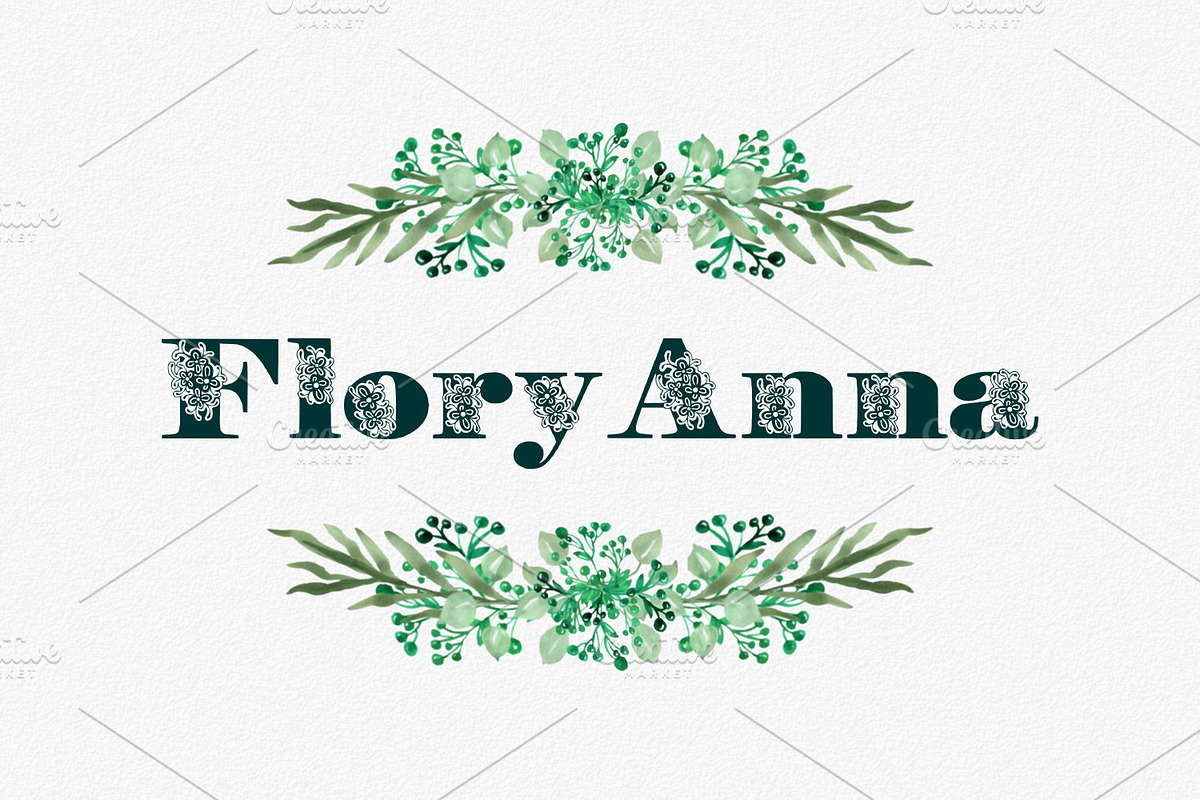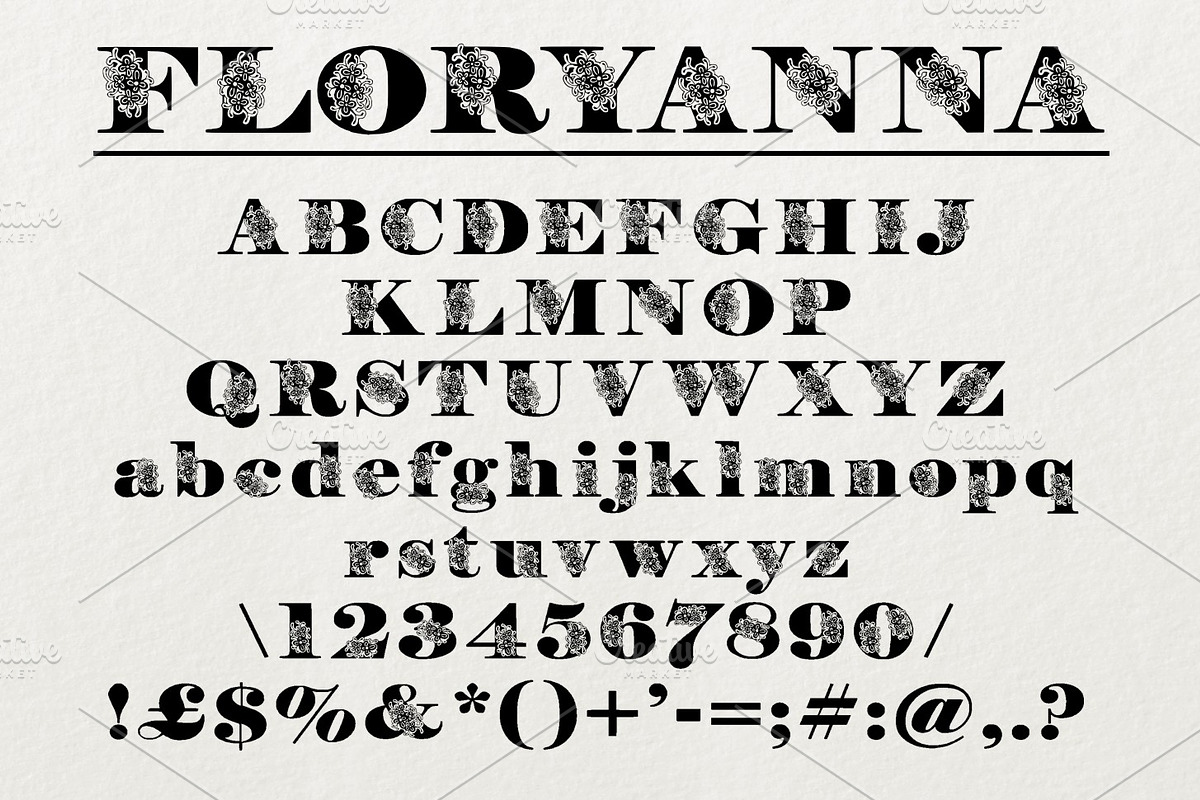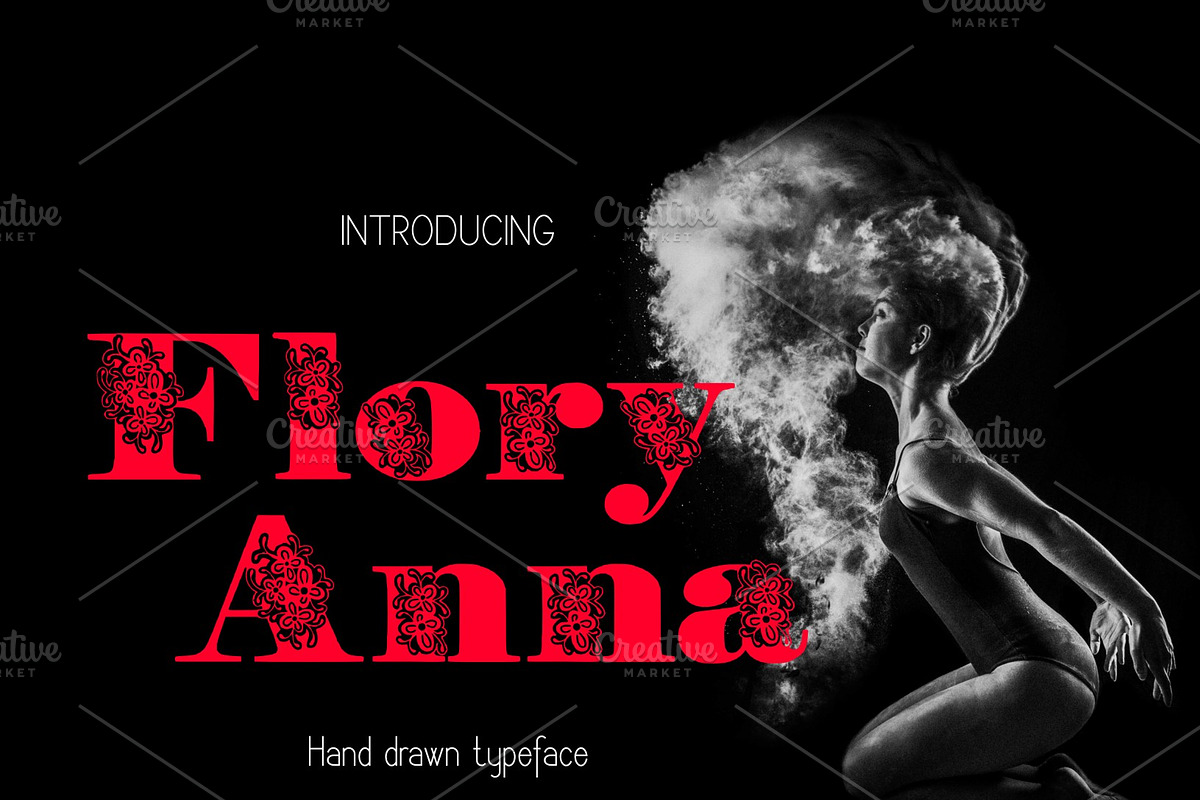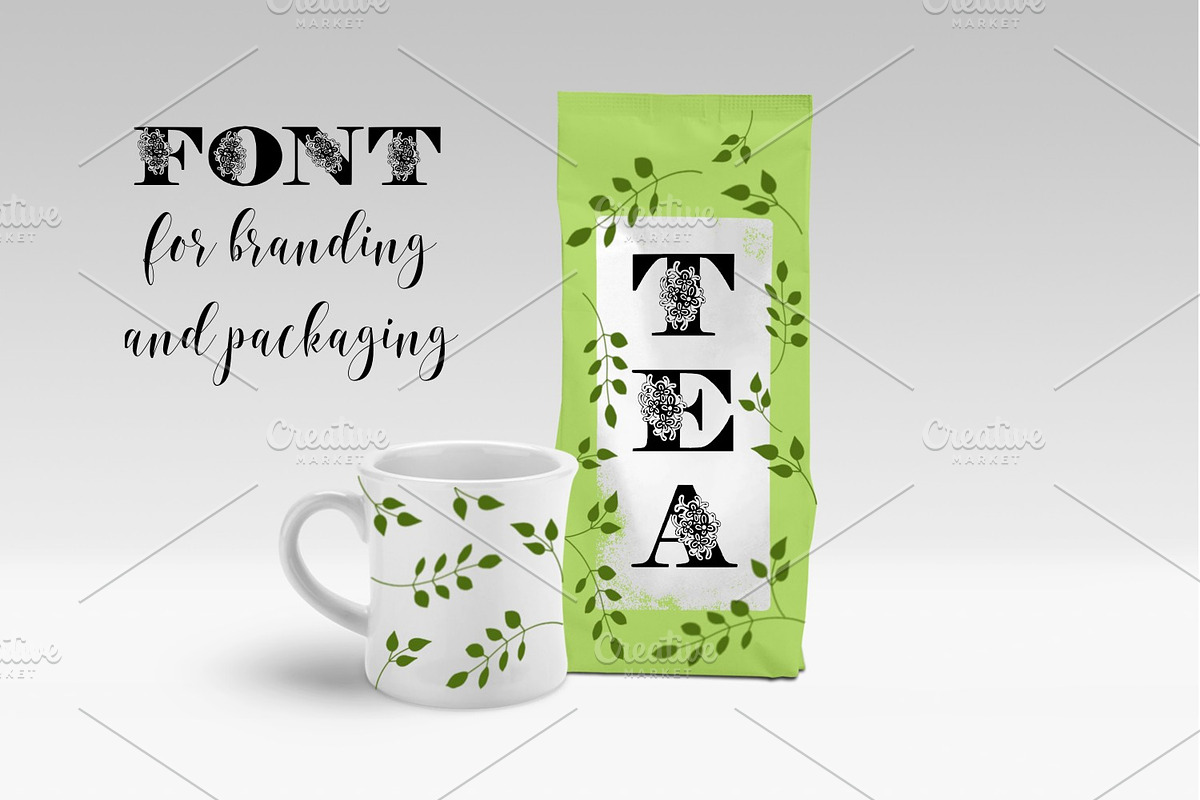
FloryAnna Font
Introducing FloryAnna decorative hand crafted typeface.
FloryAnna is great for cards, wedding designs, titling, signage, logo, poster, flyers or t-shirts design, headlines, and more!
Why FloryAnna Font is worth a look
FloryAnna Font by Digital Typeface Studio fits naturally into Branding, posters, packaging, typography.